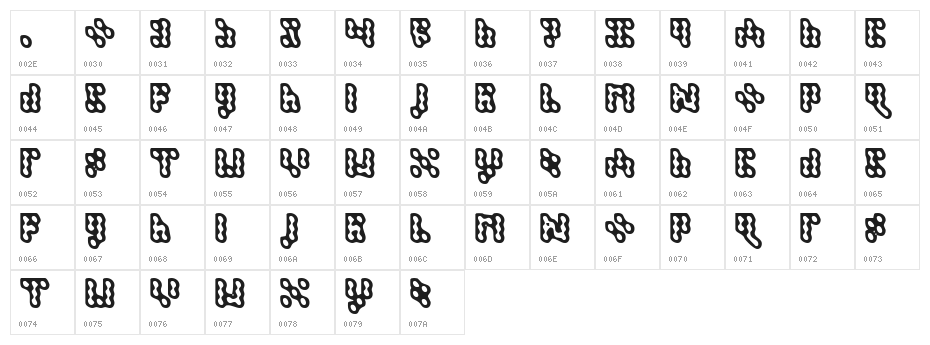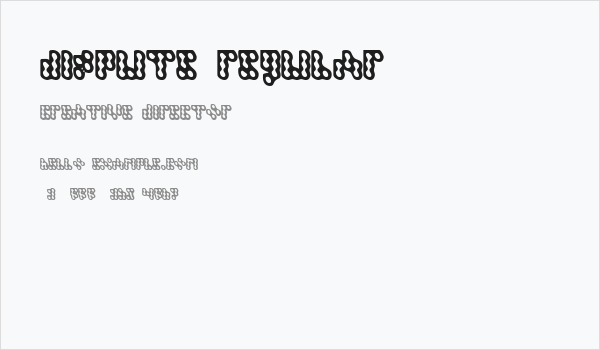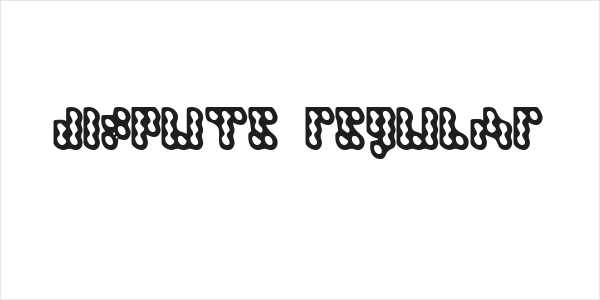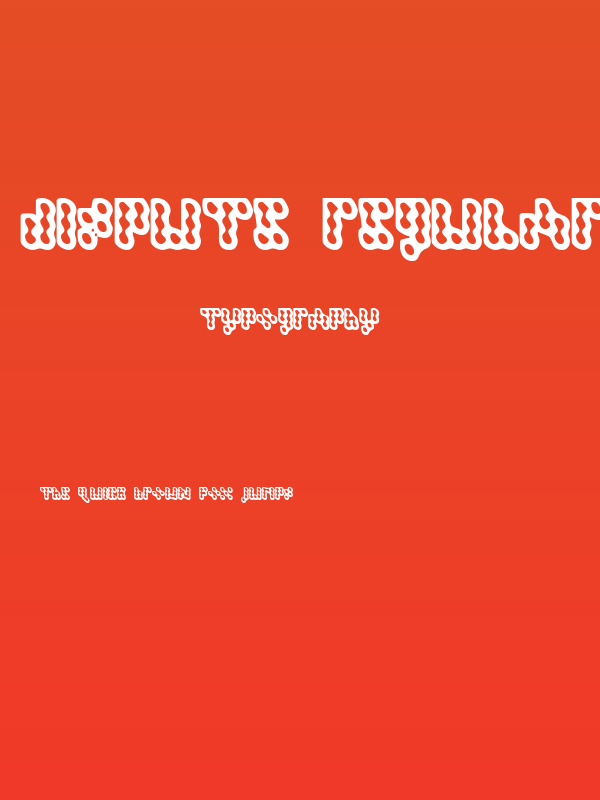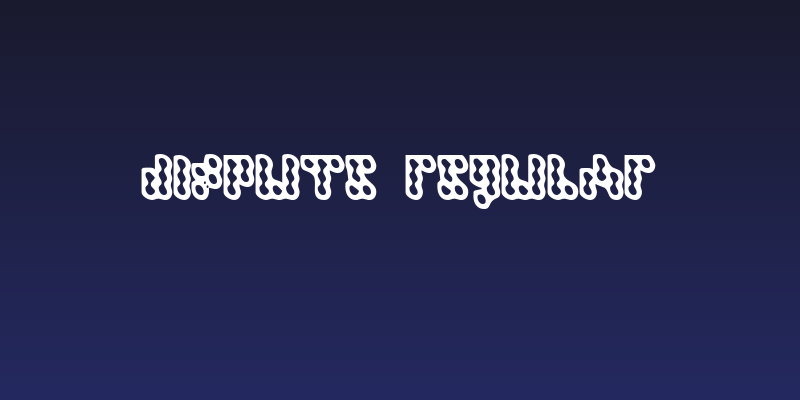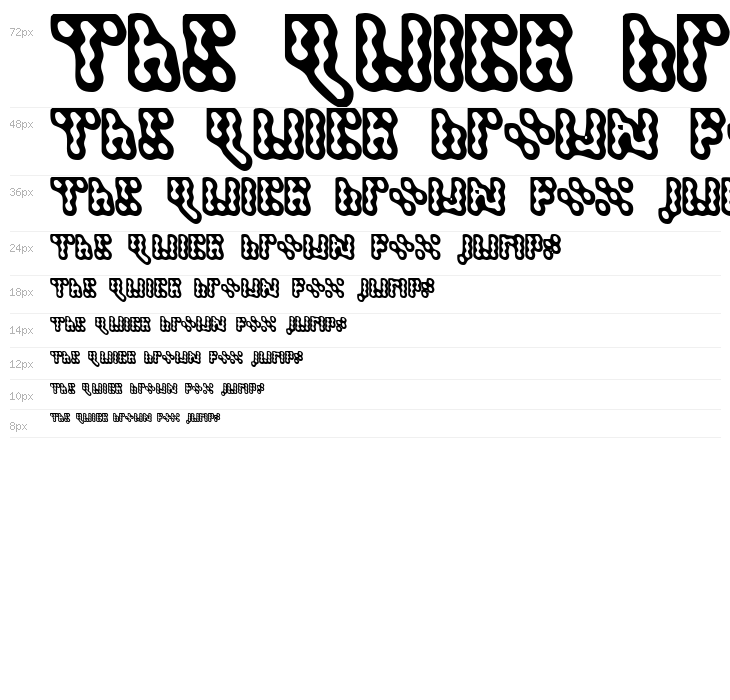
Dispute Regular Font
Dispute Regular Description
This font features a highly decorative and unique style, characterized by its bold, bubble-like forms with interconnected loops and rounded edges. The letters are filled with a pattern of circular cutouts, creating a playful and dynamic appearance. The overall design is reminiscent of organic shapes, giving it a lively and whimsical feel. The font's distinctiveness makes it stand out, making it suitable for creative and unconventional projects. Its boldness ensures high visibility and impact, while the intricate details add a layer of complexity and interest.
| Proposed Projects | Ideal for posters, album covers, children's books, and creative branding. |